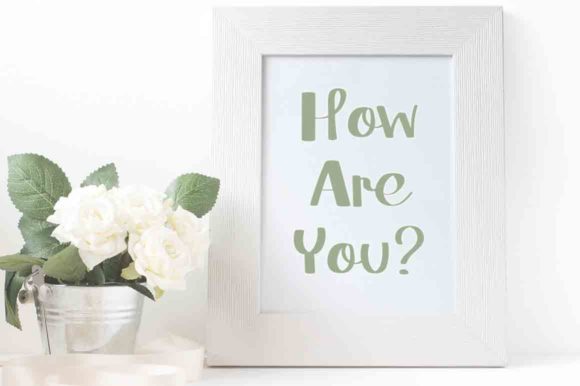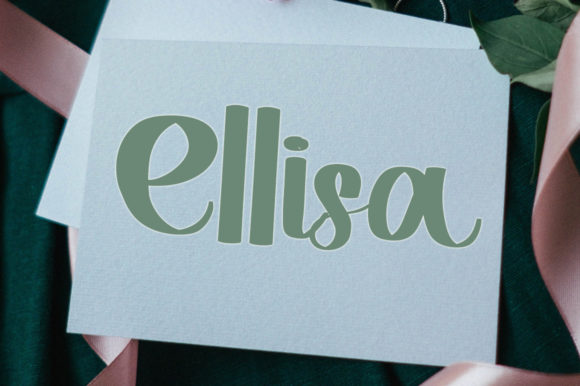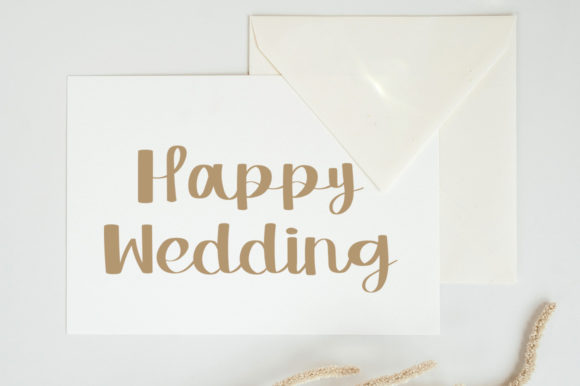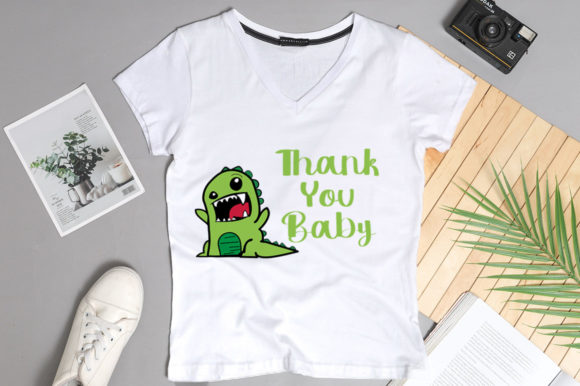
Introduction to Mandala Mountain Font
Have you ever found yourself lost in a sea of inspiration, with ideas swirling in your head like the intricate patterns of a mandala? As designers, we’ve all been there – searching for the perfect font to bring our creative project to life. And then, like a breath of fresh air, we stumble upon the perfect match.
Enter the Mandala Mountain Font, a stunning handwritten font that exudes elegance and sophistication. This versatile design resource is a game-changer for any project that requires a personal touch, from wedding invitations to logos. With its beautiful, flowing lines and high-quality design, it’s no wonder this font has become a favorite among designers.
Mandala Mountain Font Key Features
- Unique, hand-drawn design that adds a creative touch to any project
- Perfect for use in creative projects, such as book covers, posters, and social media graphics
Honest Review: Mandala Mountain Font
I recently stumbled upon the Mandala Mountain Font while searching for design resources for my latest creative project. As a designer, I’m always on the lookout for high-quality fonts that can elevate my work.
What works well about the Mandala Mountain Font is its unique blend of Eastern and Western styles, making it perfect for projects that require a touch of exotic flair. The font comes with a transparent background, allowing for seamless integration with any design element. I also appreciate the fact that it’s a free download, making it accessible to designers of all levels.
Here are some of the font’s key features:
- Unique blend of Eastern and Western styles
While the Mandala Mountain Font is a great addition to any design library, I do have a few concerns. The font can be quite large and may not be suitable for small-scale projects. Additionally, the font’s complexity can make it challenging to pair with other design elements.
Overall, I’m impressed with the Mandala Mountain Font’s unique design and versatility. It’s a great resource for designers looking to add a touch of elegance and sophistication to their creative projects.
The Mandala Mountain Font is a high-quality design resource perfect for your next creative project. With a transparent background and a unique, hand-drawn style, this font is ideal for adding a touch of elegance and sophistication to your designs.
Tips for Getting the Most Out of the Mandala Mountain Font
To get the most out of the Mandala Mountain Font, try combining it with other design elements, such as shapes and graphics, to create a visually appealing design. Experiment with different font sizes and styles to add emphasis and create a unique look.
The Mandala Mountain Font is perfect for a variety of design projects, including:
- Business cards and branding materials
- Printable art and wall decor
- Blog posts and social media graphics